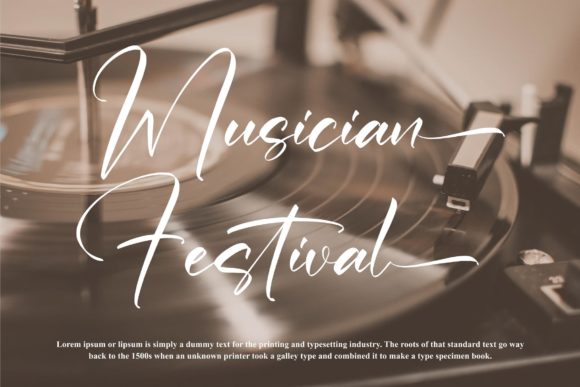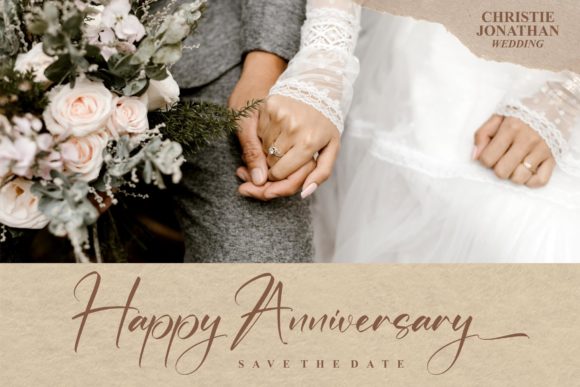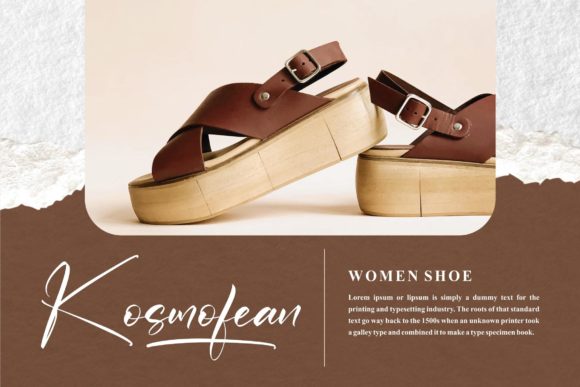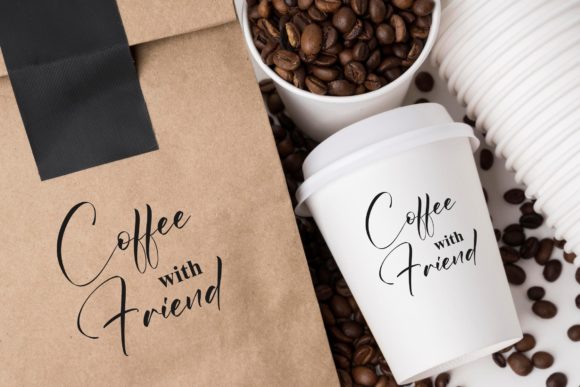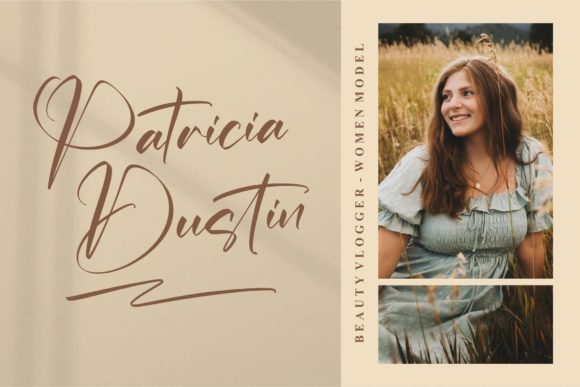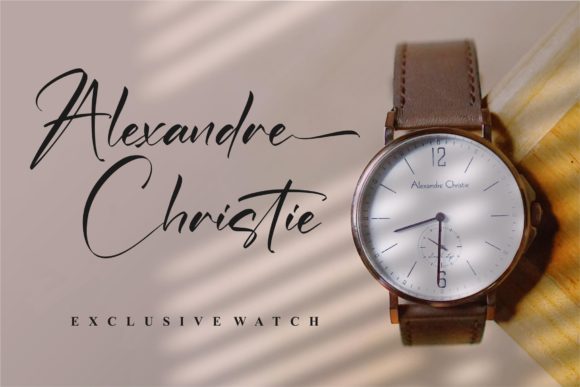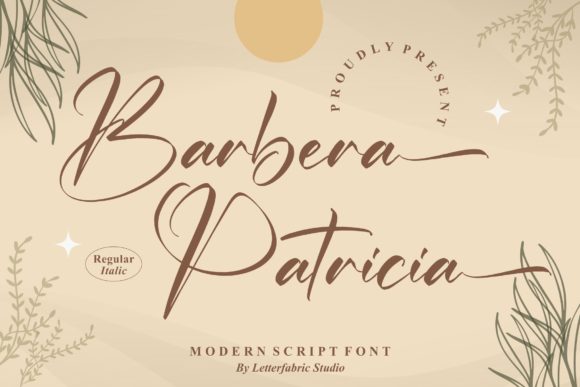
Introducing Barbera Patricia Font: A Whimsical Handwritten Delight
In the world of typography, few fonts manage to capture the essence of modern whimsy as perfectly as the Barbera Patricia Font. This beautiful, handwritten font is designed to transport your designs to a magical world, where creativity knows no bounds. Whether you’re a designer, crafter, or simply someone who appreciates the art of typography, Barbera Patricia is sure to captivate your imagination.
A Modern yet Whimsical Style
Barbera Patricia Font boasts a unique blend of modernity and playfulness, making it an excellent choice for a wide range of design projects. Its elegant, cursive lines are meticulously crafted to evoke a sense of wonder and enchantment, perfect for designs that require a touch of personality and flair. From branding and packaging to invitations and digital media, this font is versatile enough to shine in various applications.
One of the standout features of Barbera Patricia Font is its PUA (Private Use Area) encoding. This means that accessing the font’s extensive range of glyphs and swashes is incredibly straightforward. With PUA encoding, designers can easily incorporate special characters, ligatures, and decorative elements into their work, allowing for greater creativity and flexibility. No more tedious searching for the perfect character or manually adjusting letters to achieve the desired effect – Barbera Patricia Font puts everything you need right at your fingertips.
The possibilities with Barbera Patricia Font are virtually endless. Imagine creating:
- Enchanting Invitations: Set the tone for a magical event with beautifully designed invitations that showcase the font’s whimsical charm.
- Captivating Brand Identities: Establish a unique brand voice with custom logos, packaging, and marketing materials that reflect your brand’s personality.
- Delightful Digital Content: Bring your blog posts, social media graphics, and website headers to life with the font’s modern, yet playful aesthetic.
- Handmade Crafts: Add a personal touch to your DIY projects, such as planners, journals, and gift tags, with the font’s elegant, handwritten style.
Why Choose Barbera Patricia Font?
With so many fonts available, what sets Barbera Patricia apart? Here are just a few reasons why designers and crafters are falling in love with this beautiful font:
- Unique Style: Barbera Patricia Font offers a distinctive, one-of-a-kind look that will set your designs apart from the crowd.
- Ease of Use: PUA encoding makes it simple to access and use the font’s extensive features, saving you time and effort.
- Versatility: From digital designs to handmade crafts, this font is adaptable to a wide range of projects and applications.
- Magical Aesthetic: The font’s whimsical style is sure to add a touch of magic to your designs, captivating your audience and leaving a lasting impression.
Barbera Patricia Font is a true gem in the world of typography. Its modern yet whimsical style, combined with PUA encoding for easy access, makes it an indispensable tool for designers and crafters looking to add a touch of magic to their work. Whether you’re creating digital designs, handmade crafts, or anything in between, this enchanting font is sure to inspire your creativity and transport your projects to a world of wonder. So why wait? Dive into the magical world of Barbera Patricia Font and discover a universe of limitless design possibilities!